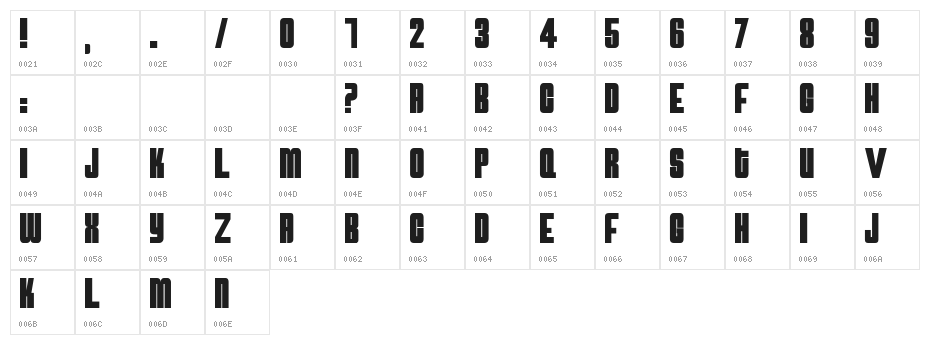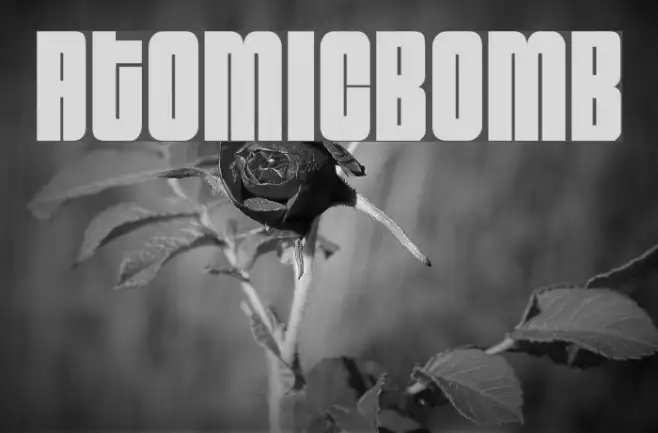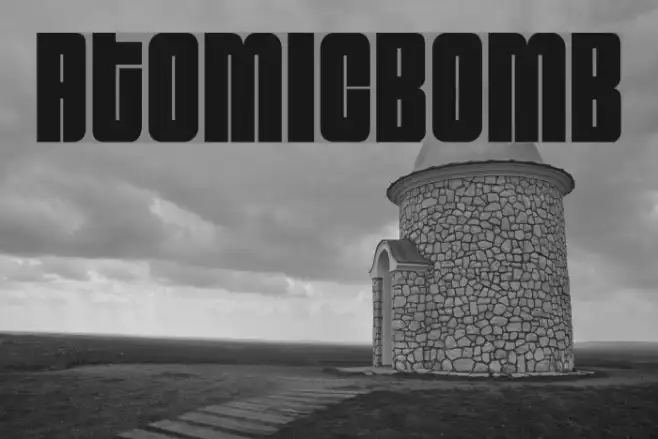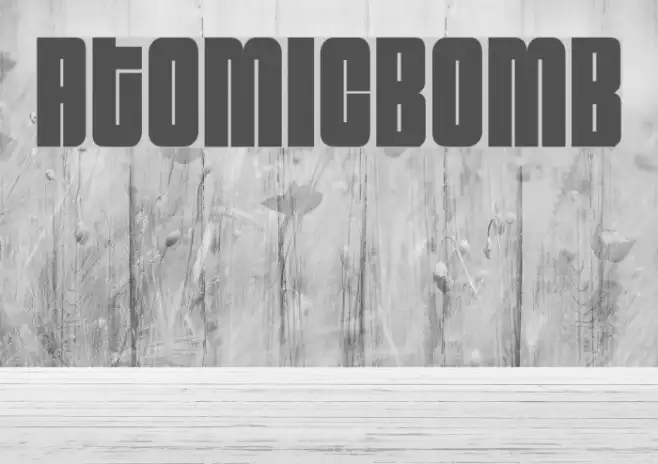
AtomicBomb Font
AtomicBomb Description
This font features bold, blocky characters with a strong presence, making it ideal for impactful designs. The uppercase letters are uniformly wide, creating a sense of stability and strength. The lowercase letters maintain the same boldness, ensuring consistency across text. Numbers are equally robust, contributing to the font's overall bold aesthetic. Special characters are designed to match the bold style, ensuring a cohesive look throughout. The font's geometric shapes and uniform stroke width give it a modern, industrial feel, suitable for attention-grabbing headlines and logos.
| Proposed Projects | Ideal for posters, logos, and headlines where a strong, impactful presence is needed. |